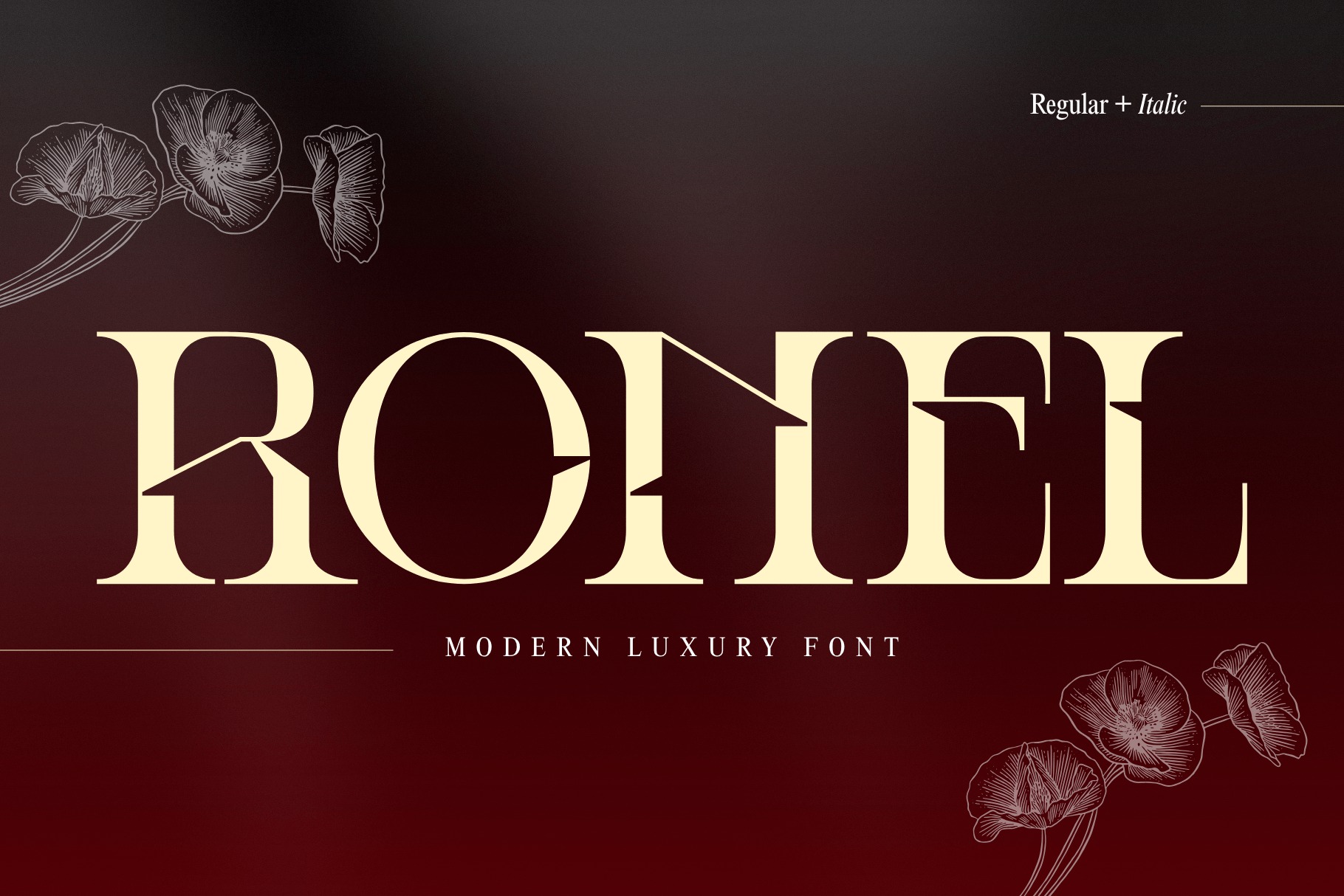
Ronel – Modern Luxury Font
Ronel – Modern Luxury Font is a clean and thoughtfully built typeface that works seamlessly for both professional branding and everyday creative uses. Ronel Luxury is a modern all-caps typeface crafted to deliver elegance and high-end appeal in every detail. Featuring both Regular and Italic styles, this font combines clean structure with unique flowing lines that add a distinctive, premium character. Perfect for luxury branding, logos, fashion labels, and upscale packaging, Ronel Luxury creates a bold yet refined visual identity, making every design feel exclusive, stylish, and timeless.